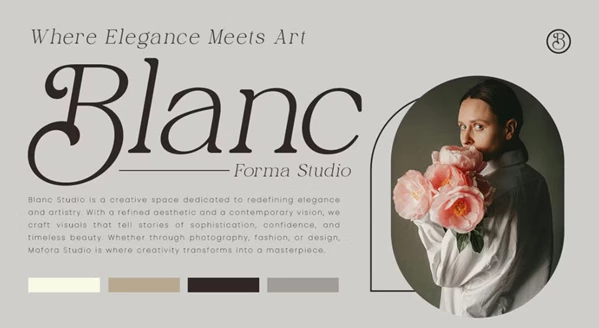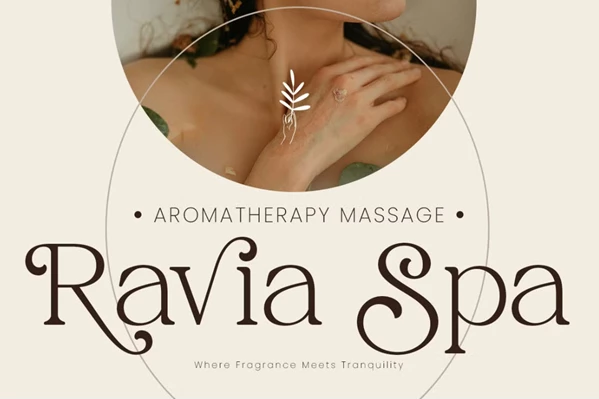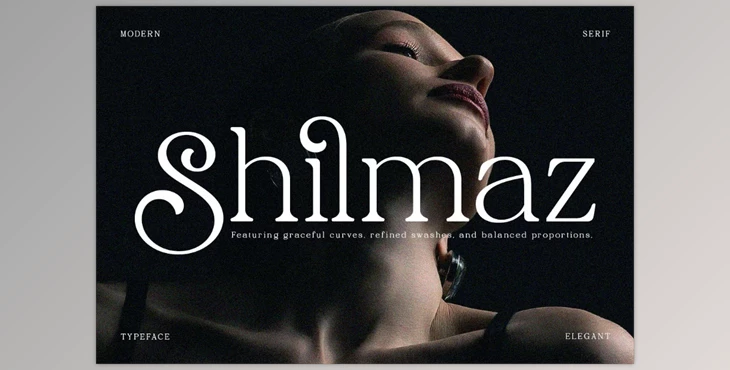
Shilmaz – Elegant Modern Serif Font:
Shilmaz. Elegant, Serif is A timeless font full of luxury and sophistication. This is the perfect font for anyone desiring a new level of inspired designer style.
Shilmaz is ornamented with sharp serif types and dainty alternates along smooth kerning for professional endeavors. It's a distinctive font with uniquely designed letterforms and great legibility for use in print and online alike. From bold headlines to whispery body texts, Shilmaz can easily fit into your overall styled vision.
The perfect use for Shilmaz would be luxurious logos, fashion branding, wedding announcements, editorial pieces, social media graphics, and any other creation that requires an elevated air to convey a message visually. With Shilmaz, you're using a sophisticated font that supports your work in coming together to create a memorable presentation. From luxe packaging to chic campaigns and timeless brand imagery, this font will bring it all to life.
- Uppercase & Lowercase
- Numbers & Punctuation
- Multilingual Support